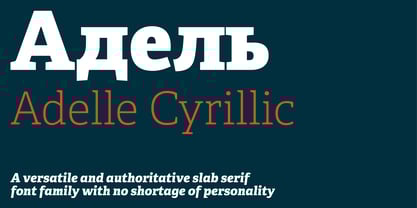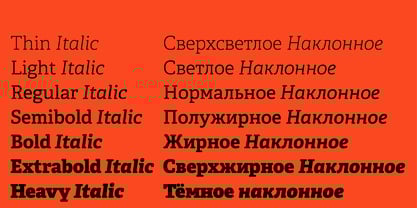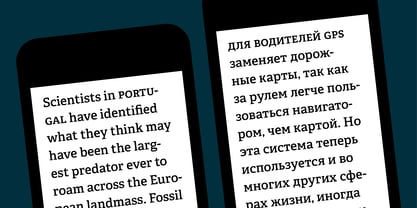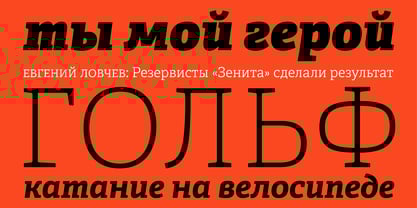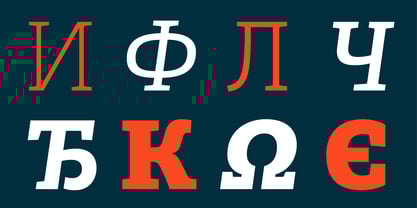
Adelle Cyrillic
by TypeTogether
The Adelle Cyrillic Font Family was designed by Veronika Burian, José Scaglione and published by TypeTogether. Adelle Cyrillic contains 14 styles and family package options. More about this family
While Adelle is a slab serif typeface conceived by Veronika Burian and José Scaglione specifically for intensive editorial use, mainly in newspapers, magazines, and online, its personality and flexibility make it a true multipurpose typeface. Adelle’s superior screen rendering and cross-platform consistency has also made it one of our most popular webfonts.
The intermediate weights deliver a neutral look when used in text sizes, providing the usual robustness expected in a newspaper font. The unobtrusive appearance, excellent texture, and slightly dark colour allow it to behave flawlessly in continuous text, even in the most unforgiving editorial applications. As it becomes larger in print, Adelle shows its personality through a series of measured particularities which make it easy to remember and identify. Its energetic character, so inherent to slab serif fonts, becomes evident when used for subheadings and headlines.
A condensed series of seven weights with matching italics expand Adelle’s possibilities. This extension provides flexible solutions in situations where saving space is vital but losing legibility is not an option. The new condensed series shares the same personality, proportions, and skeleton of the Adelle family, creating an harmonious texture when combined.
Awards
– Third prize for Latin text typeface in the 2009 Granshan Type Design Competition
– Won Gold for Original Typeface in the 2010 European Design Awards
– Selected in the first Ukrainian typeface competition in 2010
– Exhibited at the Rutenia Calligraphy & Typography Festival (http://rutenia.org.ua/en/index_u.html) in Kyiv, 2010
– Selected in the 2011 Type Directors Club Tokyo Exhibition
– Selected in Communication Arts 2011 Typography Annual
– Selected in Yearbook of Type I, 2013
– Part of the exhibition «Call for Type» and subsequent book Neue Schriften (New Typefaces)
Designers: Veronika Burian, José Scaglione
Foundry: TypeTogether